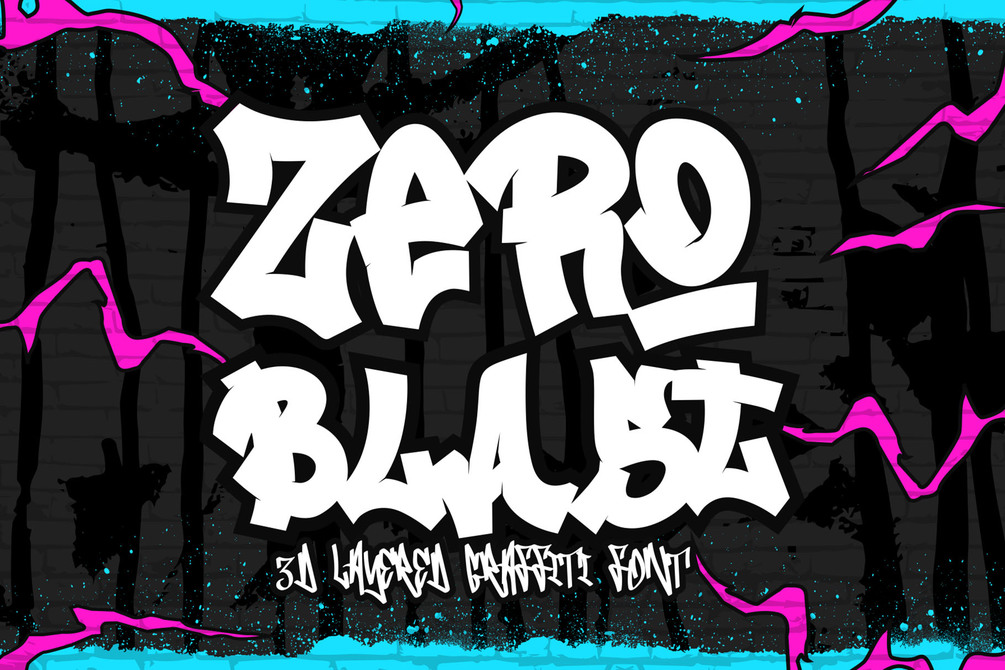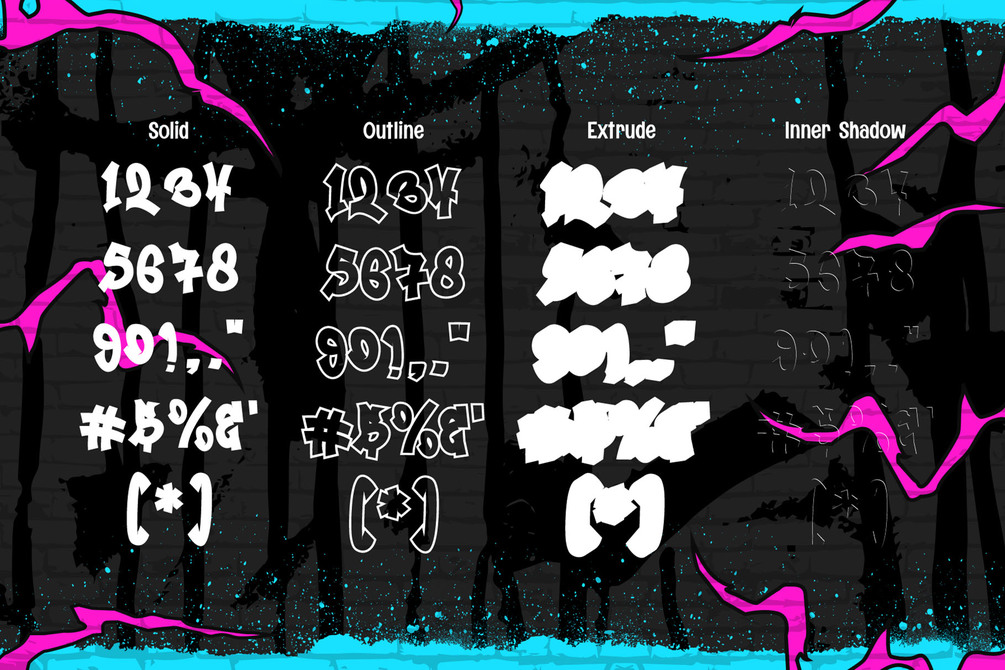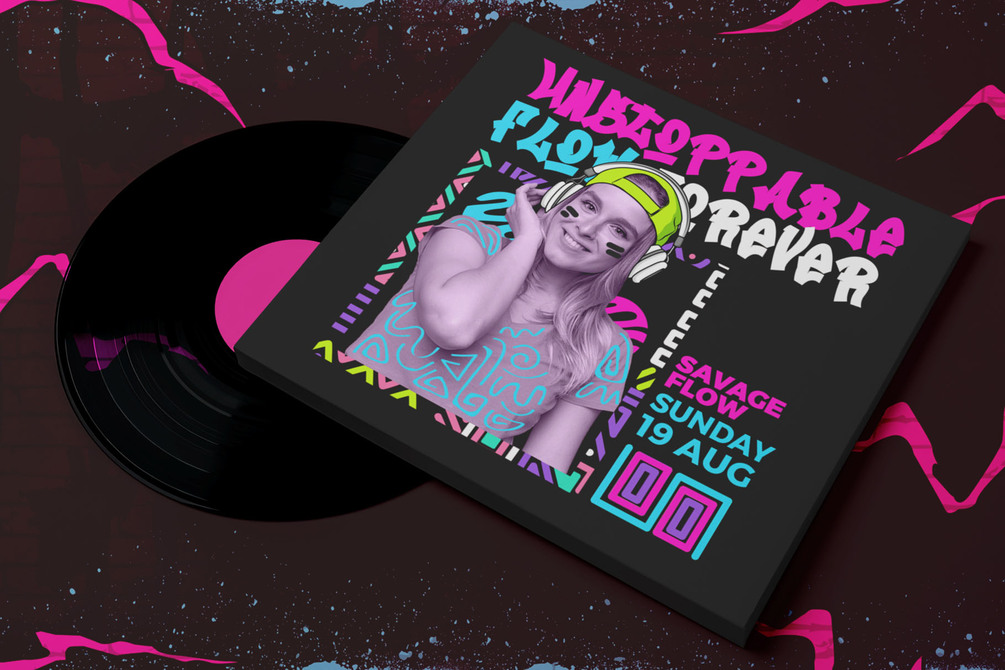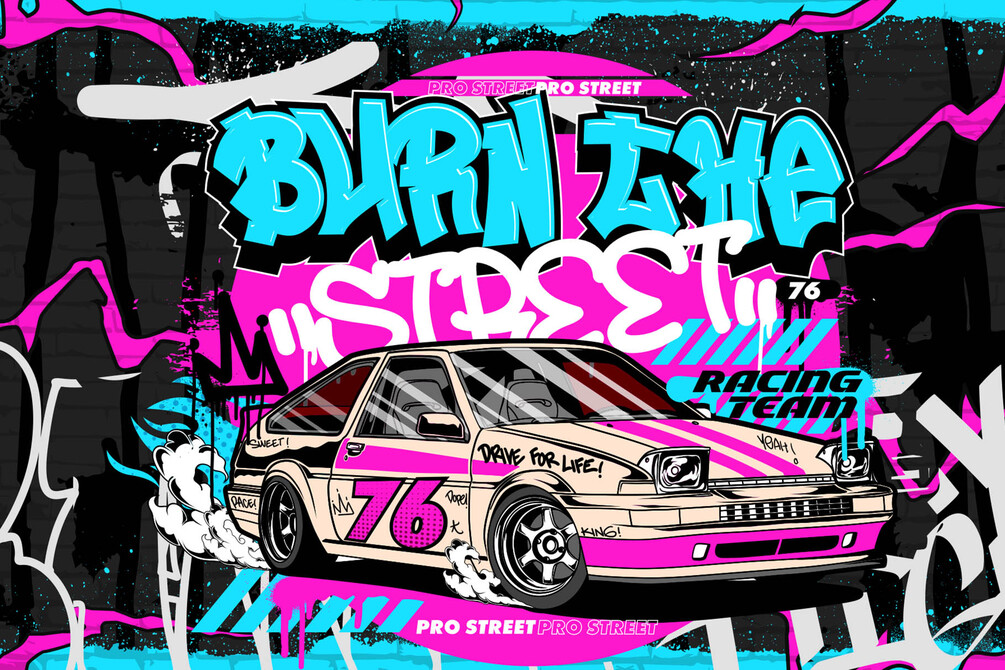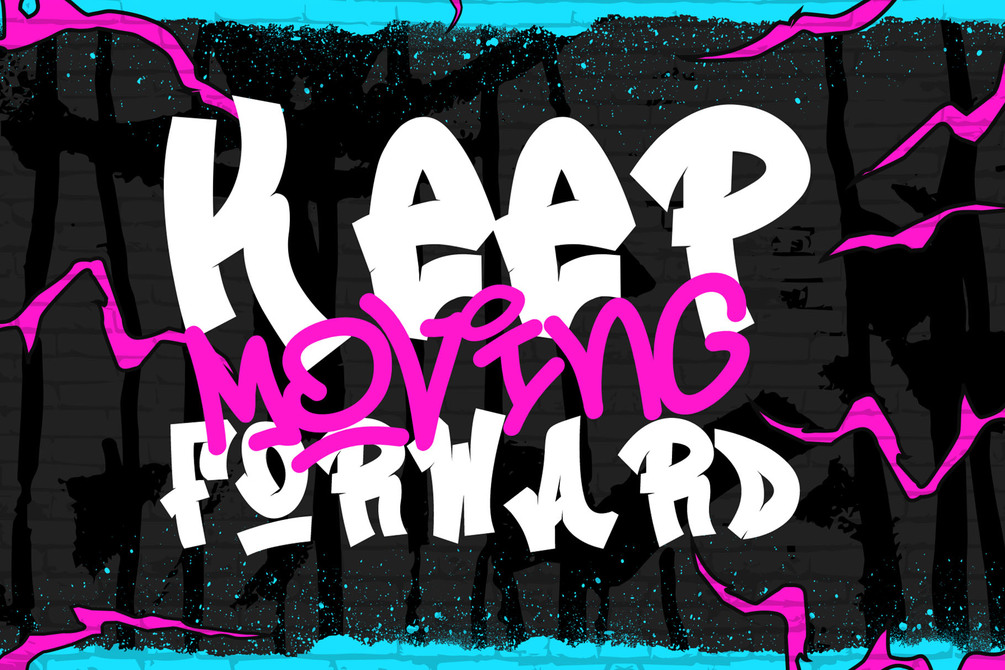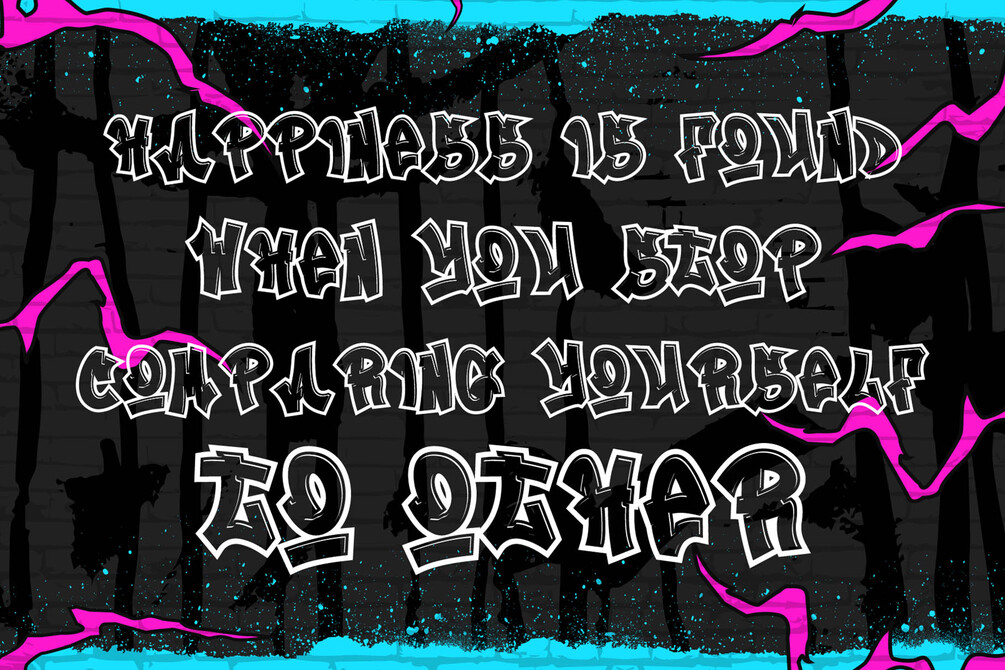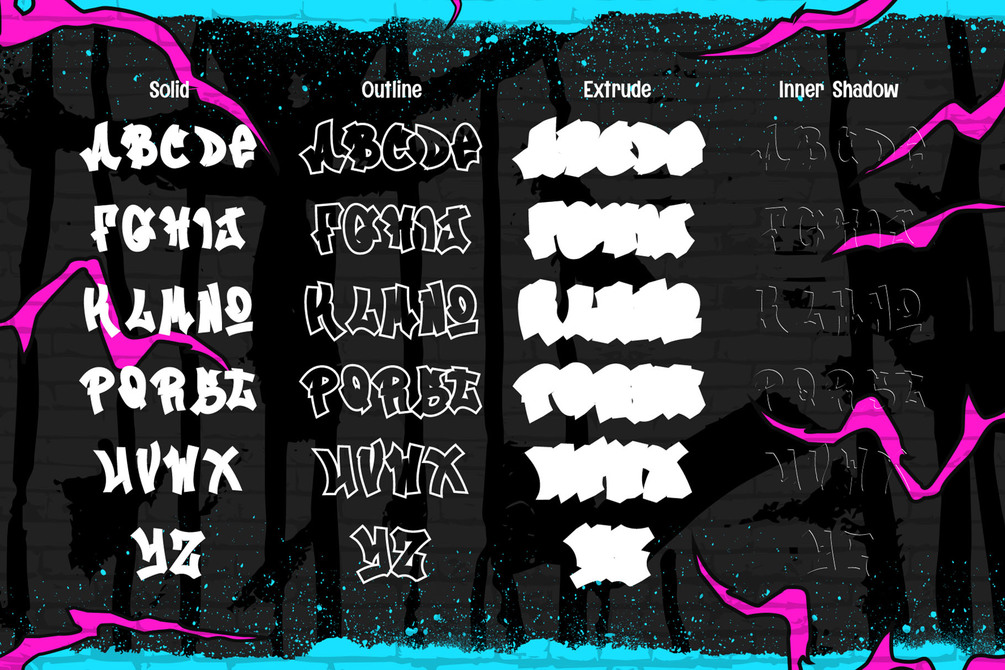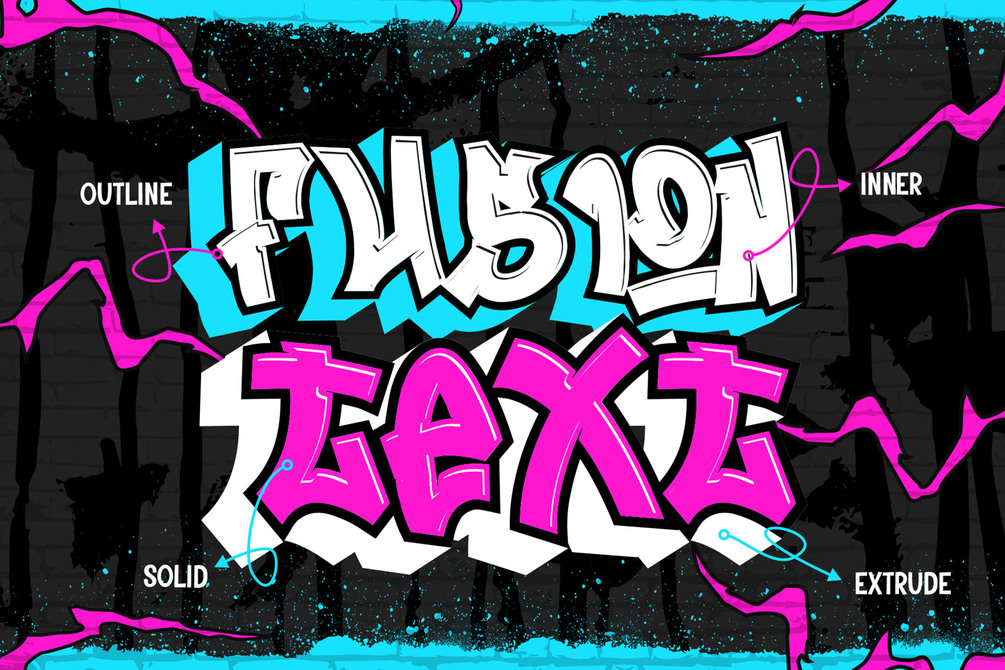
Zero Blast is a stylish and sharp 3D layered graffiti font designed to bring energy and depth to your designs. With four distinct layers—solid, extrude, outlined, and inner shadow—this font allows for creative layering and bold visual effects. Its edgy and modern aesthetic makes it perfect for street art, urban branding, posters, album covers, and hip-hop-inspired designs. Whether you’re looking for a striking graffiti style or a unique display font with depth, Zero Blast delivers a dynamic and rebellious touch to any project.
Unleash your creativity with Zero Blast! 💥 Make your designs pop with powerful graffiti vibes and bold 3D layers. Grab it now and bring urban flair to your next project!